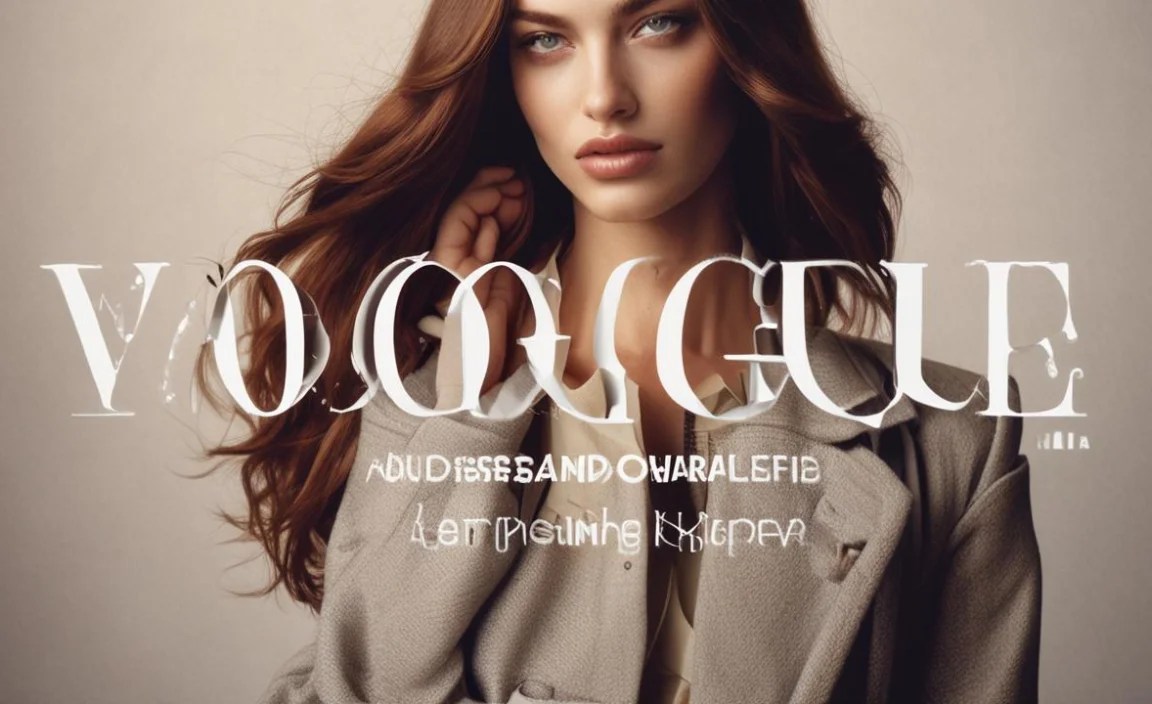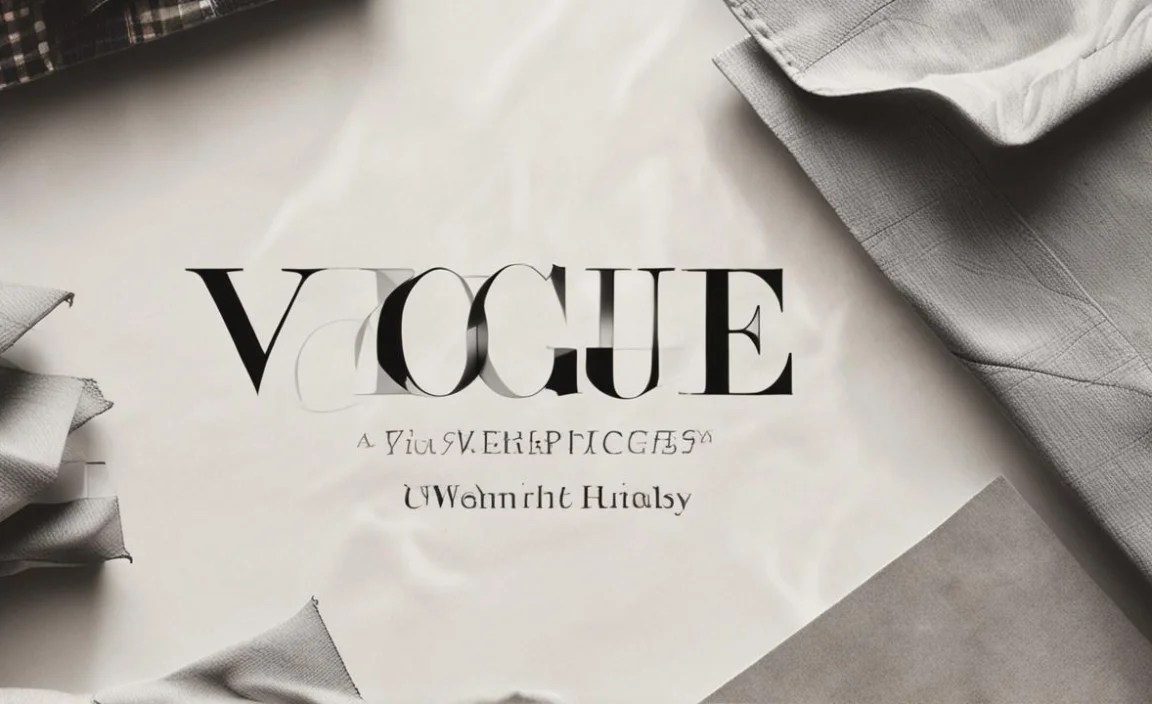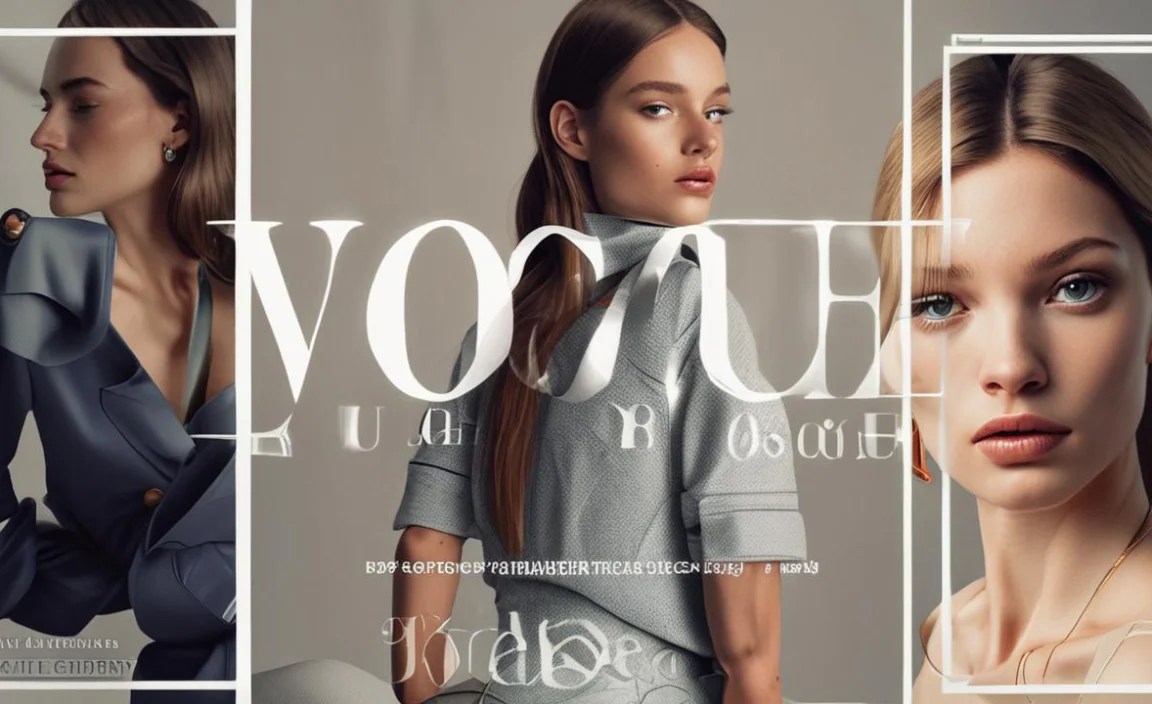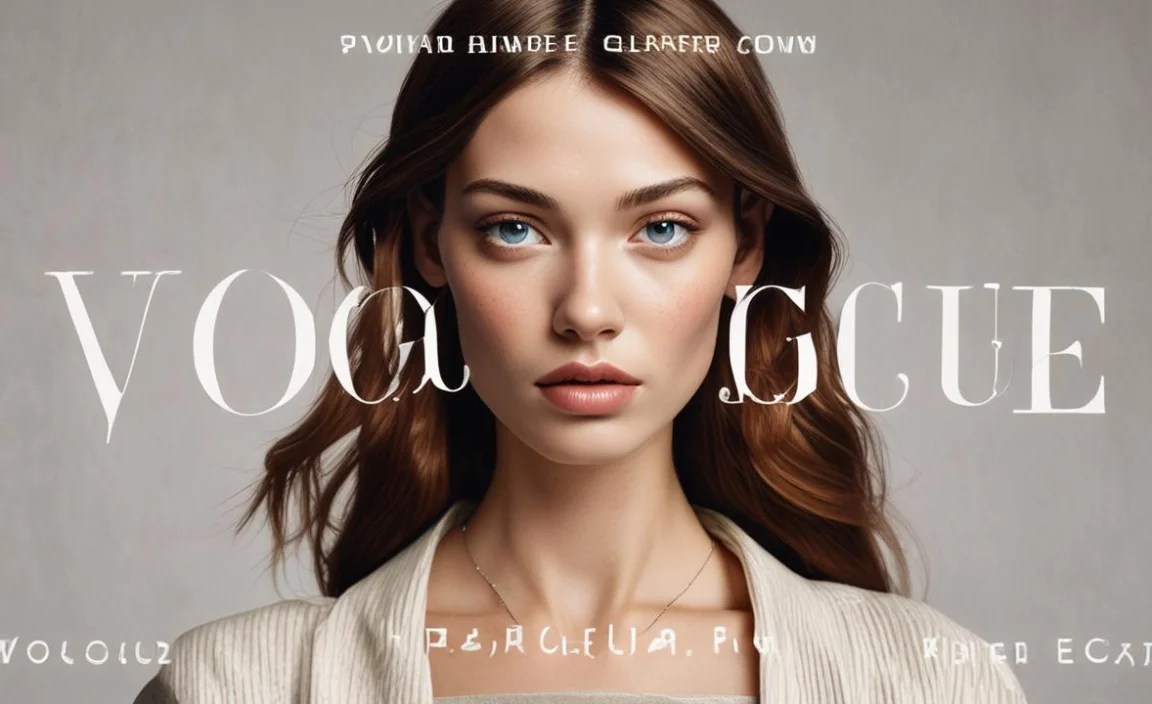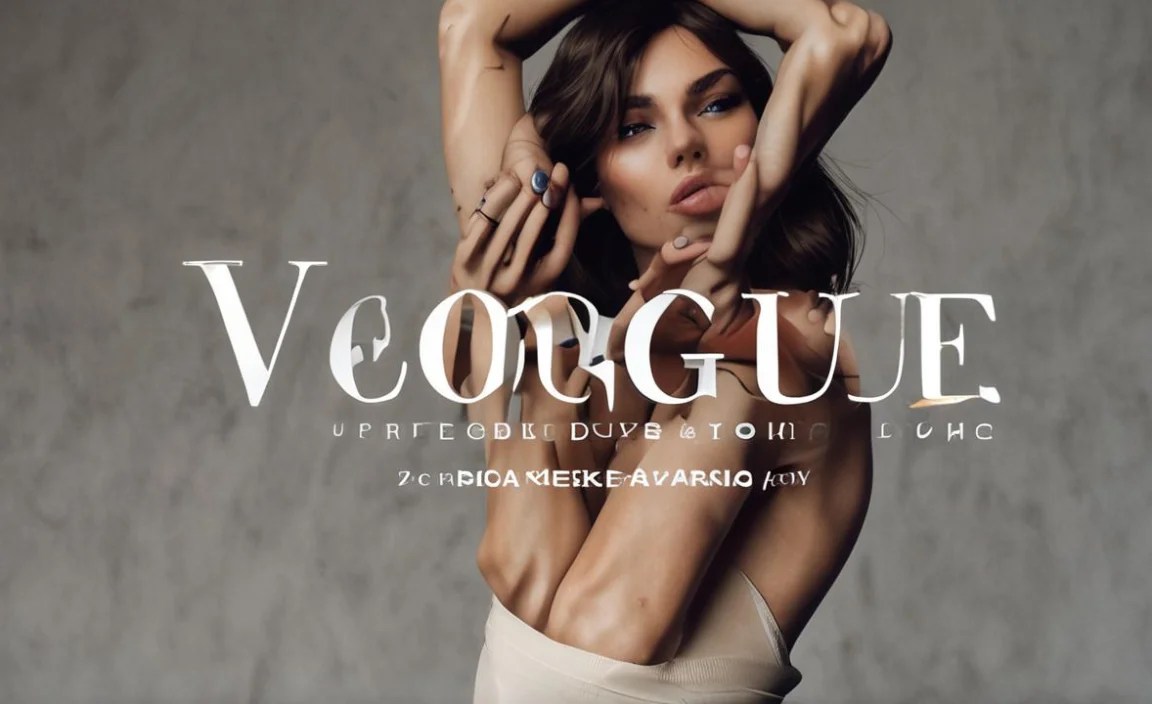
The Vogue font, designed by Vladimir Nikolic, is a sophisticated serif typeface first associated with the iconic Vogue magazine, published in 1892. This font embodies elegance and modernity, making it a staple in the fashion industry and a favorite among designers.
Vogue Font Information
| Name | Vogue Font |
| Style | Serif |
| Designer | Vladimir Nikolic |
| Type | Decorative font |
- Vogue Regular
Where Vogue Font Is In Use
- Fashion Magazines: Featured prominently on magazine covers, including the Vogue magazine logo.
- Logos: Used in branding for fashion-related companies.
- Printed Materials: Ideal for invitations, flyers, and other marketing materials.
- Design Projects: Popular in both digital and print design for its stylish appearance.
- Pair the Vogue font with modern sans serif fonts for a balanced look.
- Combine with script fonts for an elegant touch in invitations.
- Use alongside decorative fonts for unique branding projects.
The Vogue font stands as a testament to the elegant and ever-evolving world of fashion typography. Designed by Vladimir Nikolic, it has become synonymous with high fashion and style.
Its versatility and timeless appeal make it a perfect choice for various design projects, whether for printed materials or modern digital graphics. With its distinctive character map and aesthetic, the Vogue font continues to inspire designers in the fashion industry and beyond.
1.What Is The Vogue Font?
The Vogue font is a serif typeface known for its elegant design, prominently featured in Vogue magazine’s branding.
4.What Styles Does The Vogue Font Include?
The Vogue font includes elegant serif styles, making it suitable for a variety of design projects.
5.Is The Vogue Font Suitable For All Types Of Design?
While it is primarily used in fashion and magazine designs, its elegant aesthetic can enhance various creative projects.